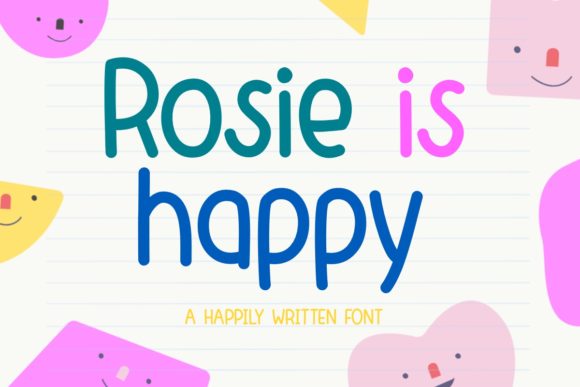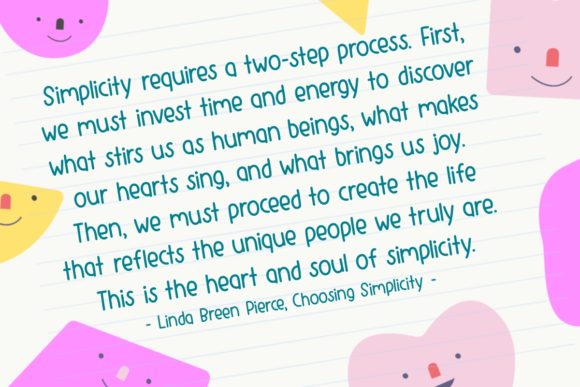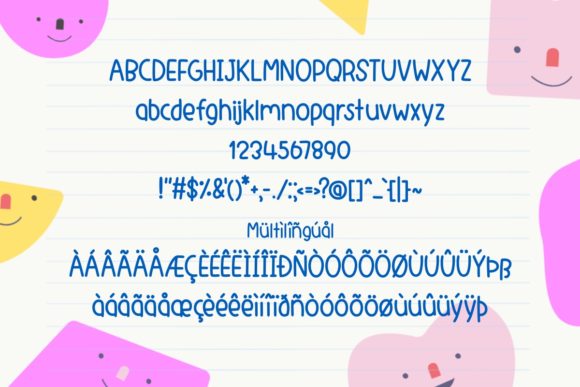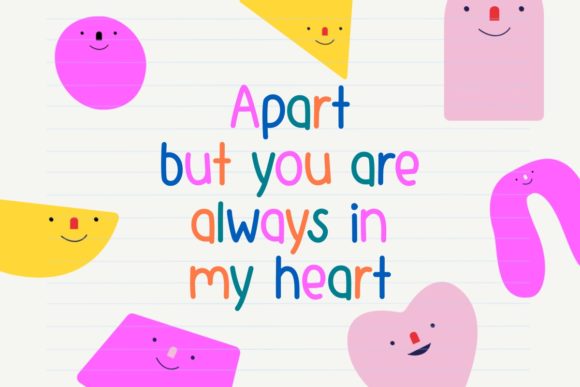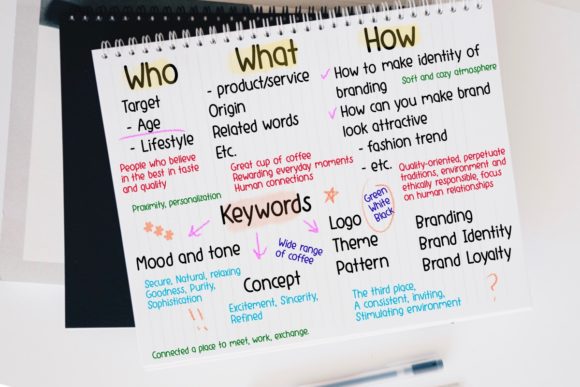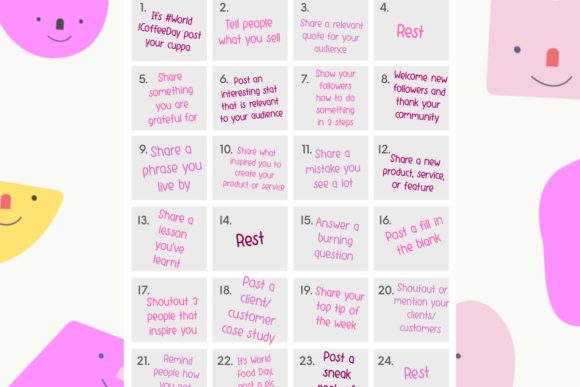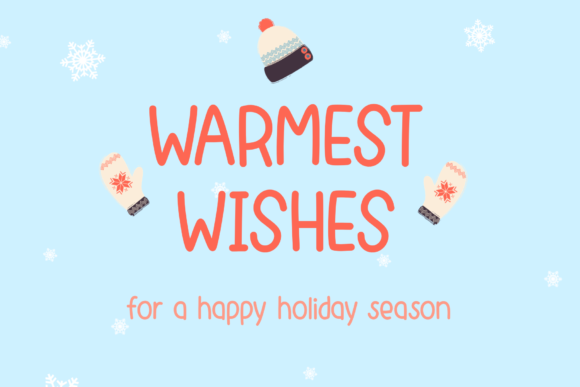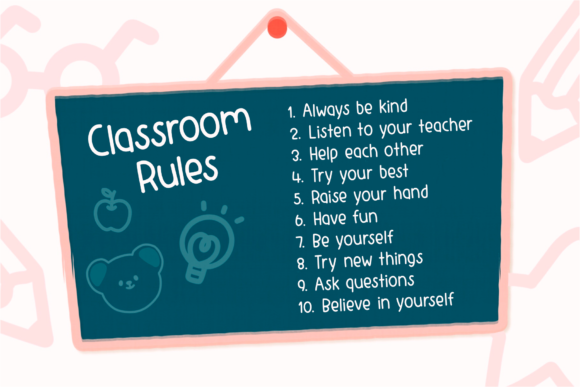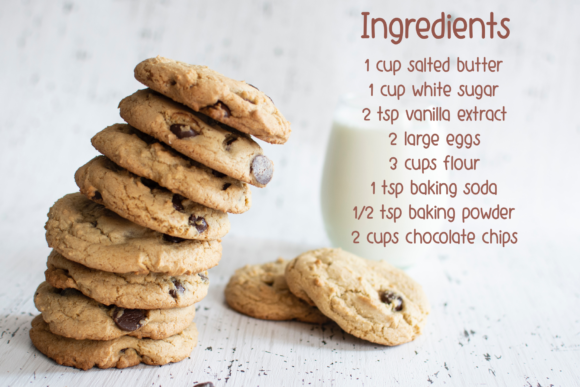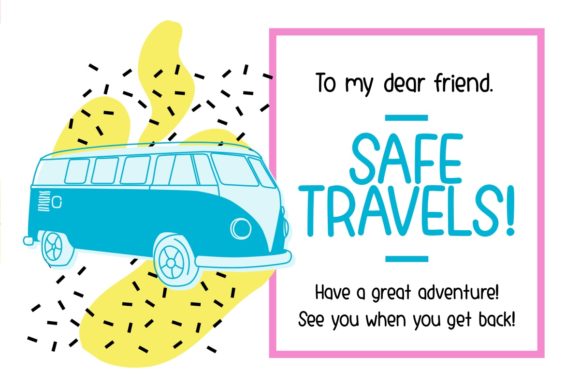
Rosie is Happy Font
About Rosie is Happy Font
Rosie is Happy is a simple, neat and incredibly versatile handwritten font. Cheerful and versatile, this font will elevate each of your creations!